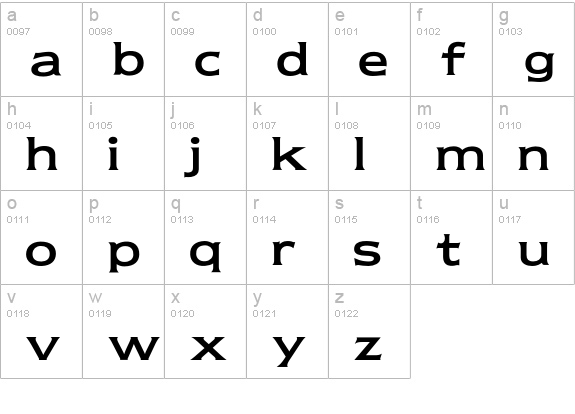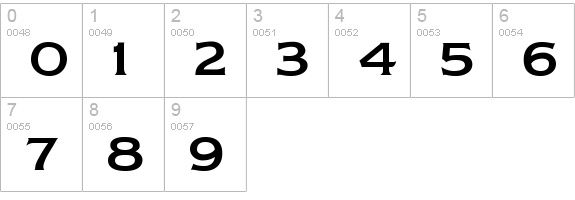
NewtextRegular Font Details
NewtextRegular is a versatile and modern font that is perfect for a wide range of design projects. Its clean lines and balanced proportions make it easy to read while still adding a touch of sophistication to any layout. Whether you're creating a logo, website, or print materials, NewtextRegular will bring a professional and polished look to your work. Best of all, NewtextRegular is free to download at FontsMarket.com. This means you can enjoy the high quality and versatility of this font without any cost. With its timeless appeal and easy readability, NewtextRegular is sure to become a go-to choice for your design projects. Download it today and elevate your designs with this stylish and modern font.